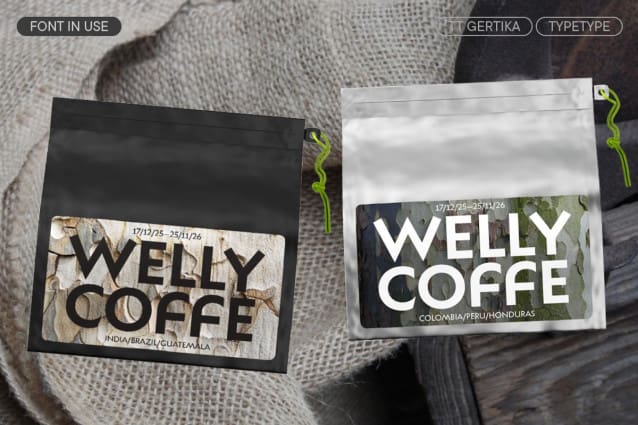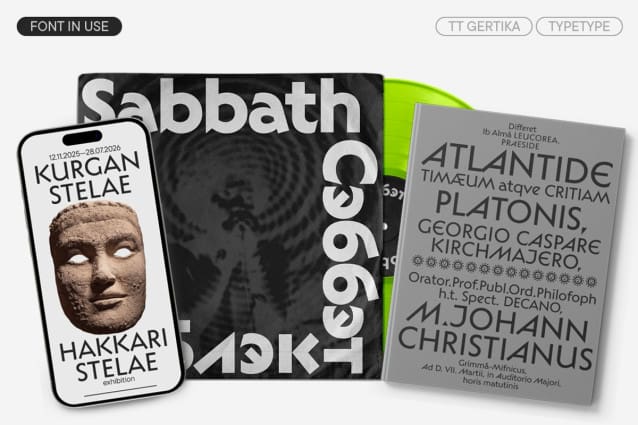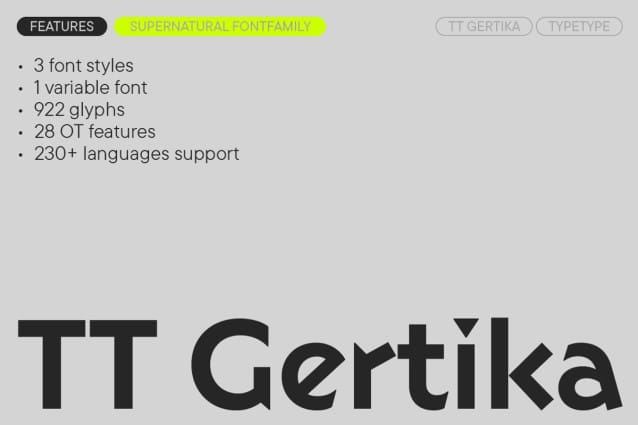
TT Gertika Font
TT Gertika is a geometric sans serif with a dynamic character and a dancing rhythm. This font’s idea originates from the lettering featured on an American poster from the late 1930s. We saw many peculiar and eye-catching details in the letters and decided to reimagine them. As a result, we got a font that alludes to something ancient and primitive while still being modern.
TT Gertika stands out for its rough diagonal stroke cuts at a 90° angle, sharp and “straightforward” intersections of letter elements, asymmetrical, sharp terminals in glyphs like “S,” “C,” and “З,” which contrast with the overall geometric quality of the forms, and noticeably dynamic proportions. It is also curious that we designed different diacritical marks for wide and narrow characters.
Due to stylistic sets, the mood and visual features of the font may transform dramatically: you can make it look more strict and dynamic or, in contrast, rounded and fluid. In addition, the typeface includes a variable font with a weight variation axis. This makes the mood of TT Gertika even easier to adapt to your needs.
TT Gertika is well-suited for accent placement and shines best in large point sizes. However, it works well enough in small text blocks as well. This font is an excellent choice for covers of books and magazines dedicated to art. It can effortlessly adorn the exhibition environment and blend harmoniously with brand identities inspired by folklore and works from the primitivist genre.